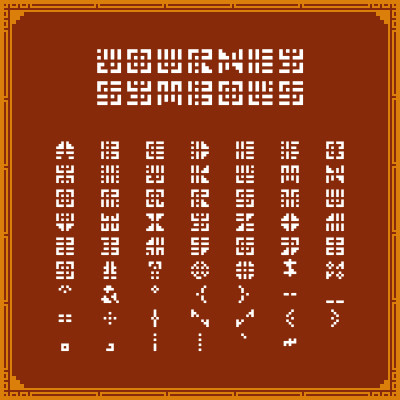
A font I made over at FontStruct that is similar to the Smybols found in Journey. All of the core letters and number are contructed out of the same pieces that make up the actual in-game Symbols, but arranged so as to appear visually similar to English Latin letter glyphs. I have also included symbols for punctuation such as brackets, hyphens, semi-colons and the like (basically anything that isn't an accented letter), although these are made using custom-made glyphs. Don't worry though, I made them similar to the Journey Symbol style! All glyphs, including the spaces, are the same height and width, meaning that the symbols will all line up in bodies of text.Symbol pieces were created by the artists at thatgamecompany. Journey is copyright of Sony Computer Entertainment.
The moment you see an know the letters is a kind of magical.
Thank you! The Journey language is meant to be ambiguous so I doubt it'd ever be used. However I have seen a cosplayer use it to spell "JOURNEY" on their scarf, which was awesome!
After the numbers I cant quite figure it out pls help me!
Okay, I'll list them here: ^ & * { } - _ = + | \ / ( ) . , ; : ' ~
Wait... What about after the question mark you knou the two big circles?
Oh, whoops! On that row it's 9 ! ? @ # $ %
These are very clever! Are you planning on releasing them as an actual font, or is this the extent of your work? I'd love to have them as part of my typeface collection.